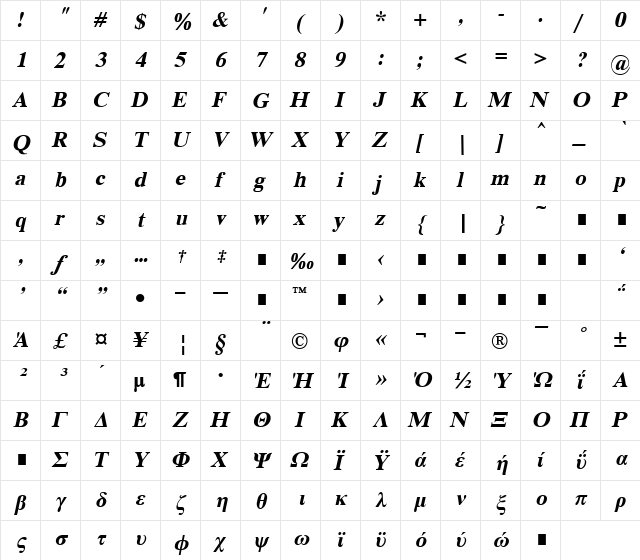
TmsGk Bold Italic
Design Context for TmsGk Typeface
TmsGk offers clean, dependable letterforms without strong stylistic allegiance, making it a practical choice for designers who need flexibility. The slanted form adds forward momentum and visual energy. Its bold stroke weight gives it real presence on the page.
Pro Tip: Try TmsGk for annotation and caption copy alongside an upright companion — the contrast in angle creates a dynamic but ordered typographic system.